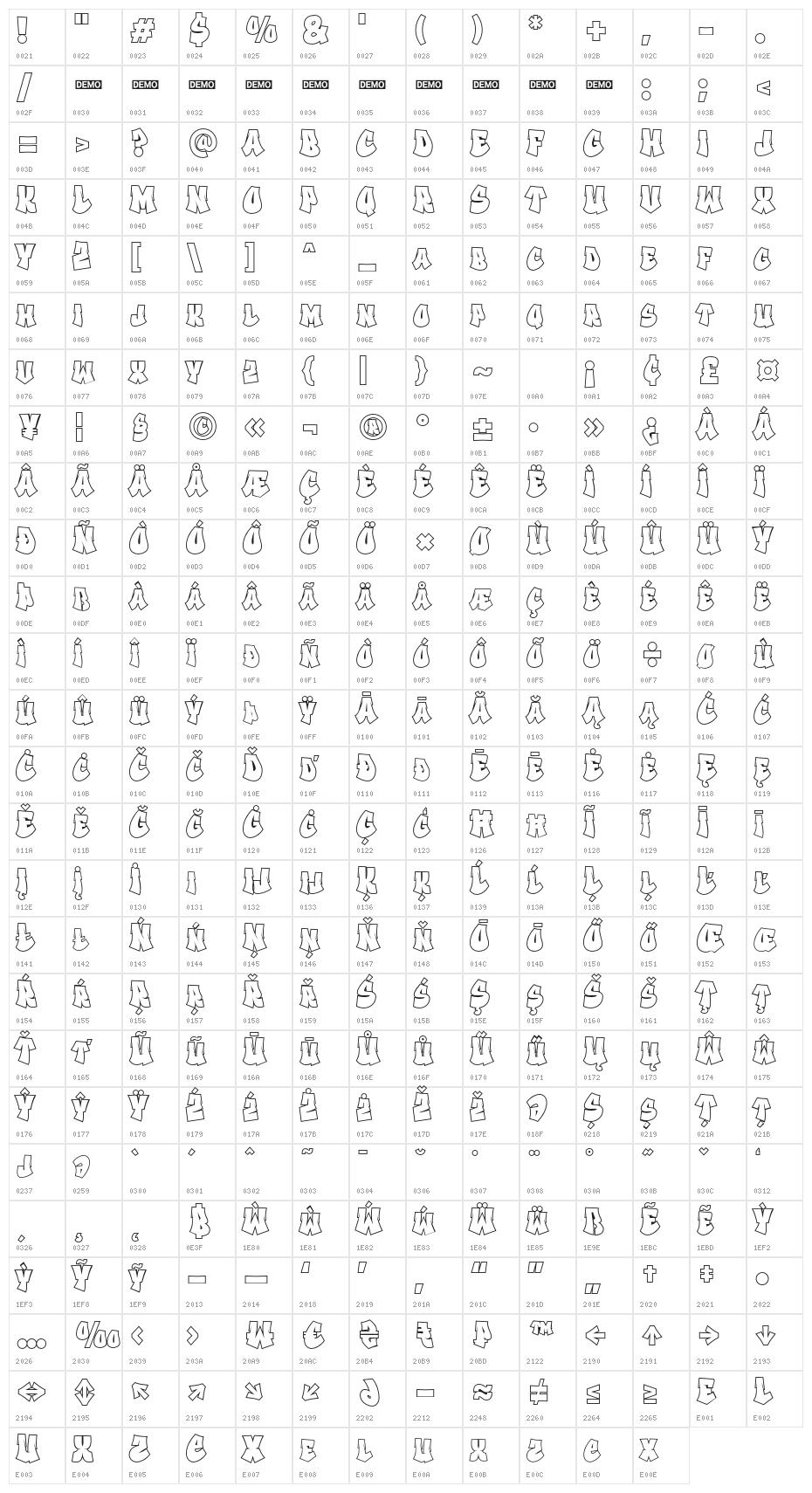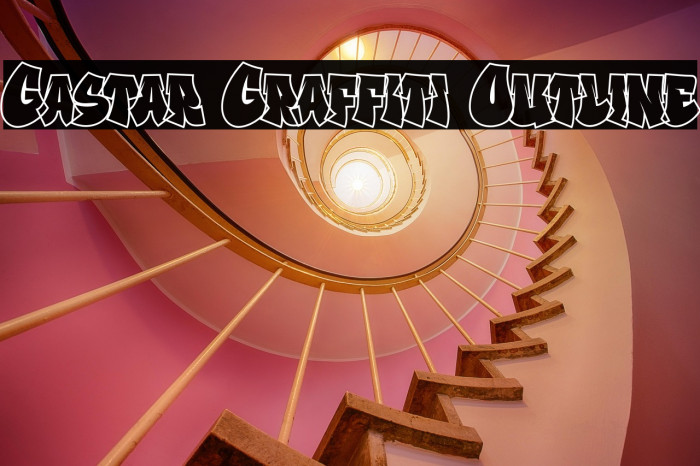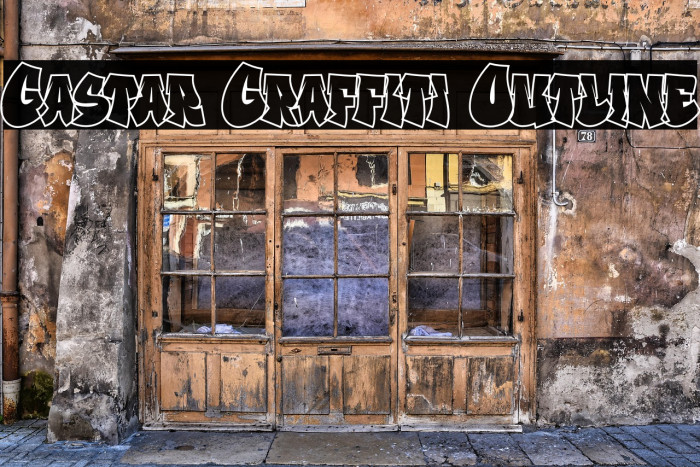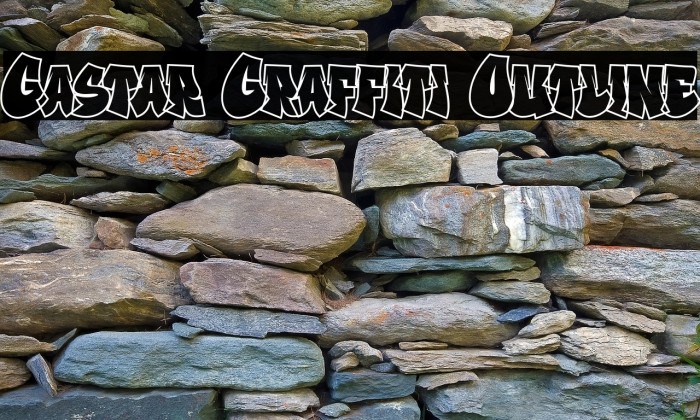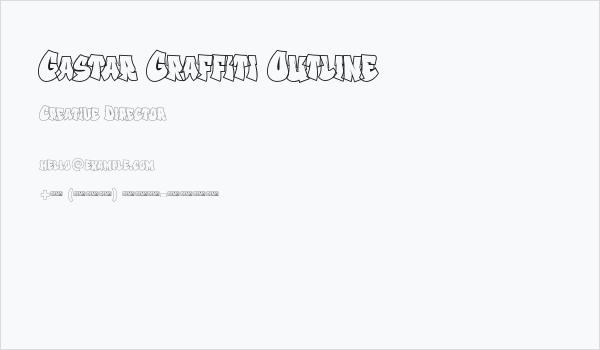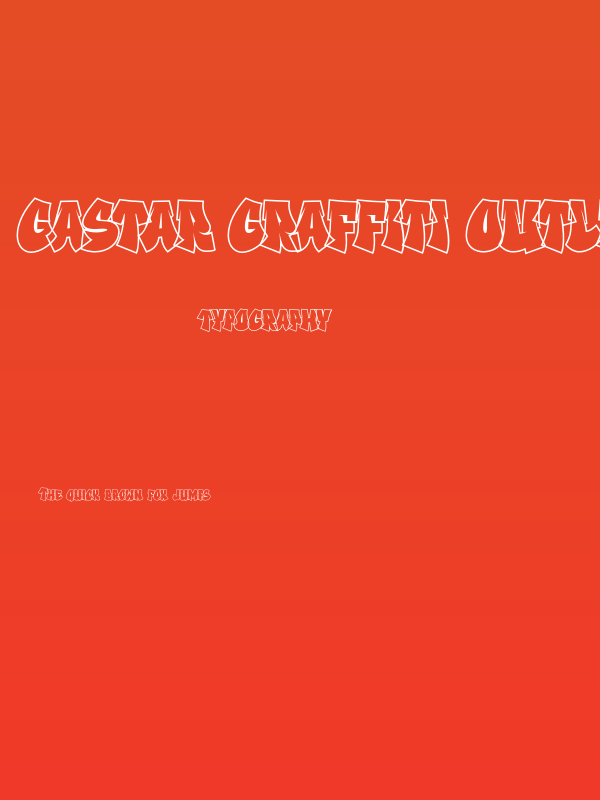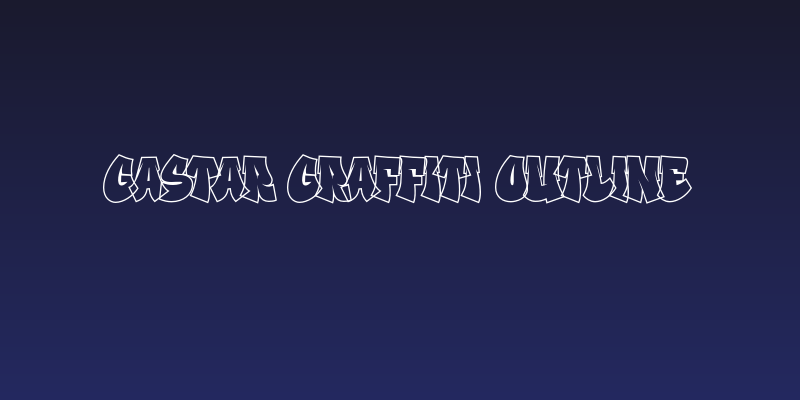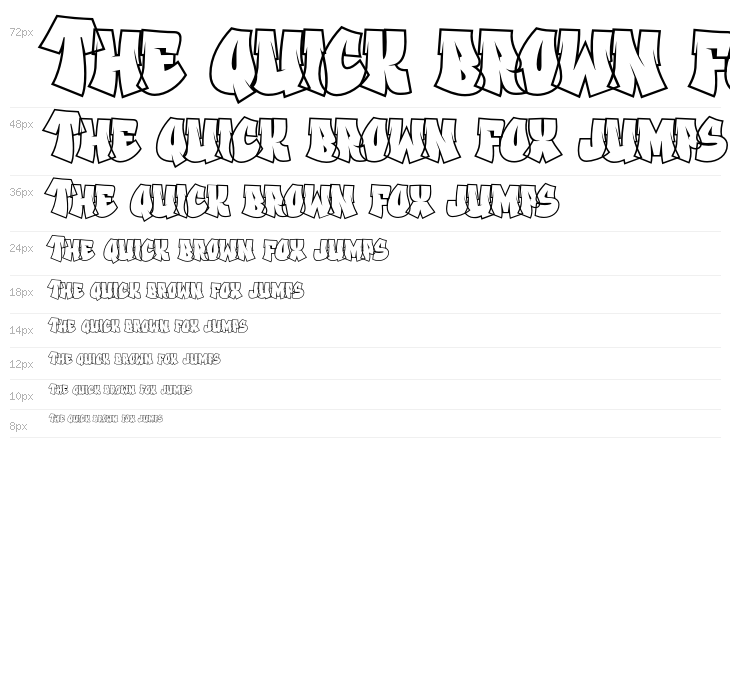
Gastar Graffiti Outline Font
Gastar Graffiti Outline Description
This font embodies a bold and expressive graffiti style, characterized by its thick outlines and angular, dynamic letterforms. Each character is designed with a sense of movement and energy, capturing the essence of street art. The uppercase letters are particularly striking, with sharp edges and a slightly exaggerated form that enhances their visual impact. The lowercase letters maintain this aesthetic, offering a cohesive look across the alphabet. The numbers and special characters are equally bold, ensuring consistency throughout. This font is ideal for projects that require a strong, urban vibe.
| Overall Style | Urban, Graffiti, Bold |
| Proposed Projects | Perfect for street art-inspired designs, urban-themed posters, music album covers, and edgy branding projects. |